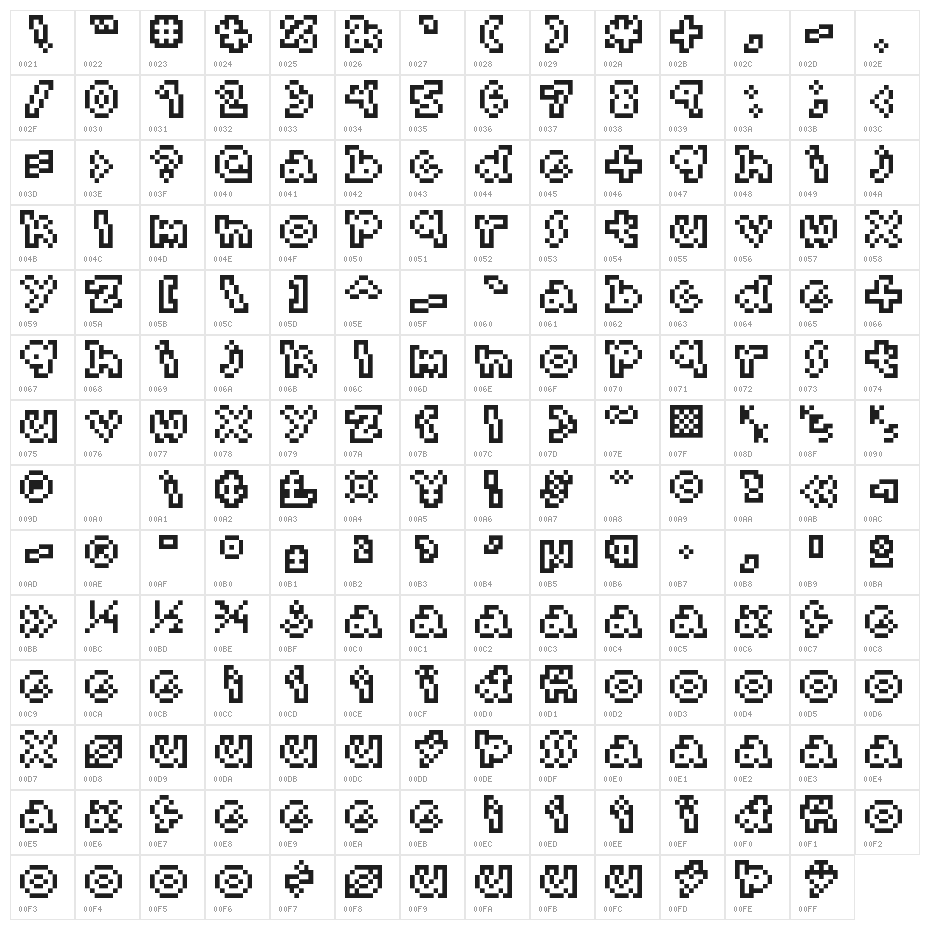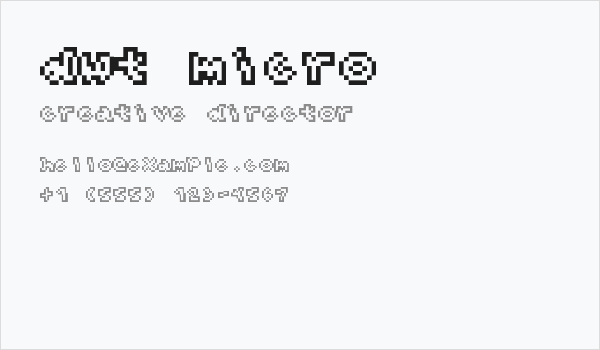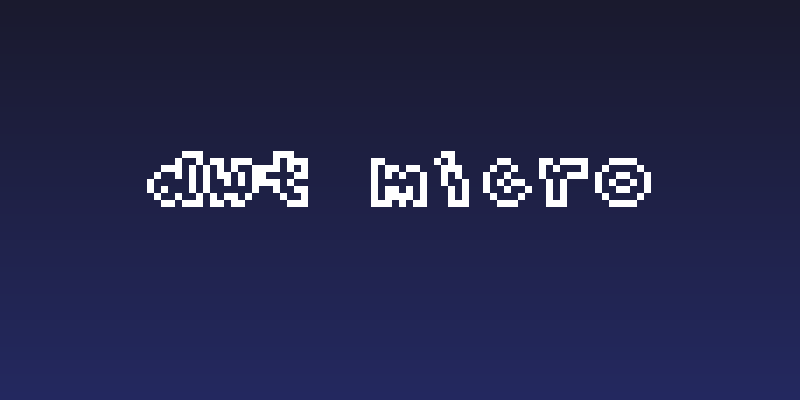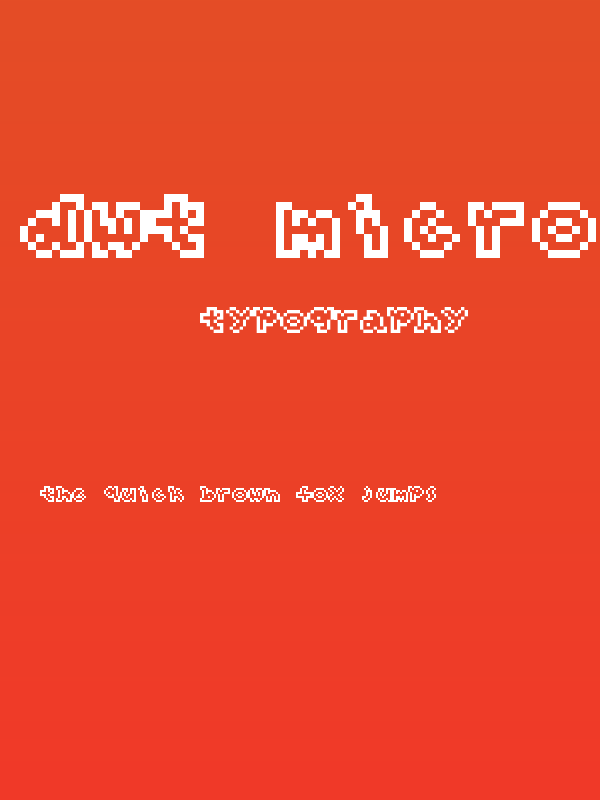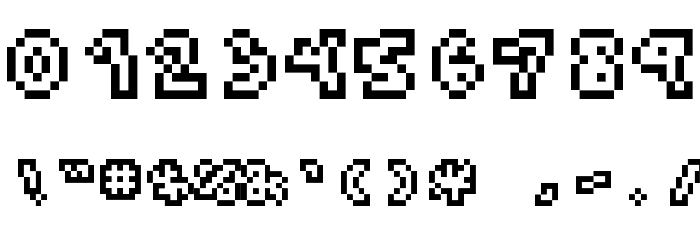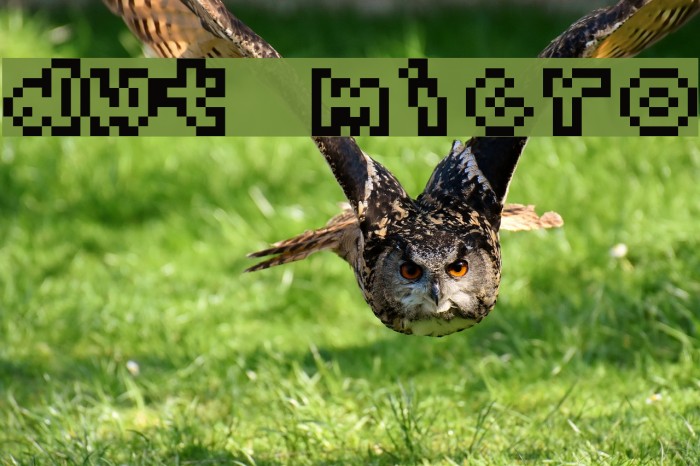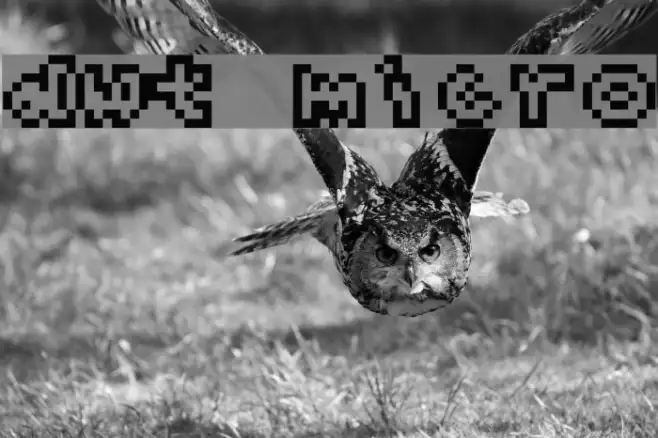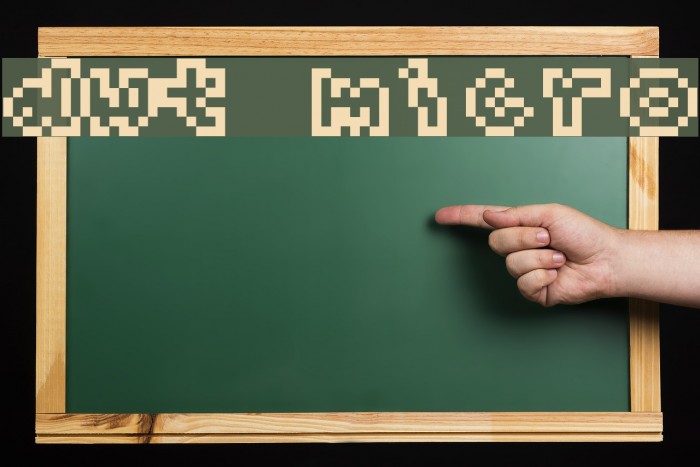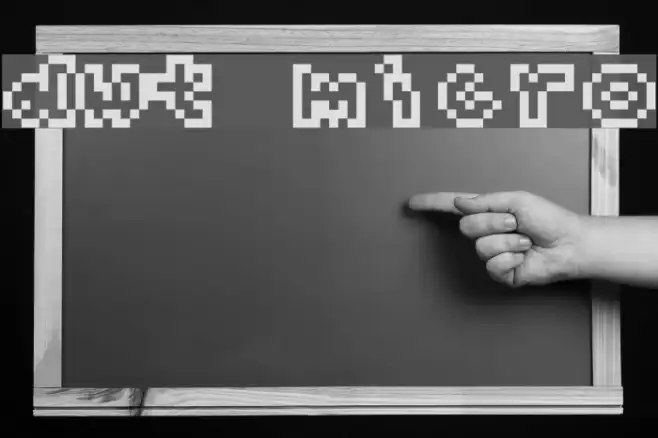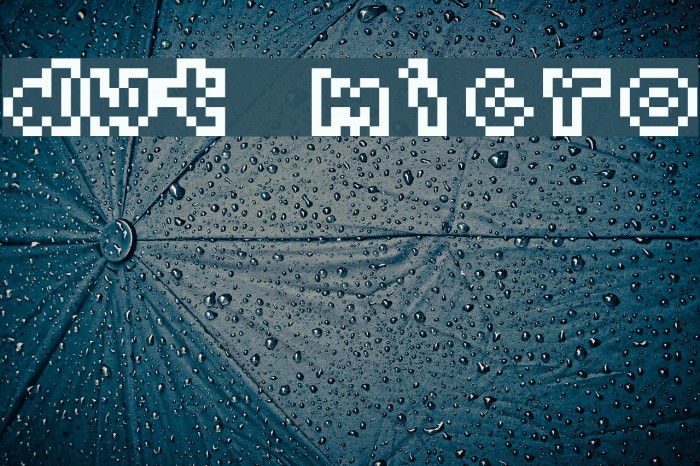
dwt Micro Font
dwt Micro Description
This font features a pixelated, blocky design reminiscent of early digital or video game typography. Each character is constructed with a grid-like pattern, giving it a retro, 8-bit aesthetic. The uppercase and lowercase letters maintain a consistent height, contributing to a uniform appearance. The numbers and special characters follow the same pixelated style, ensuring cohesion across all glyphs. This font's distinct style is ideal for projects that aim to evoke nostalgia or a vintage digital theme. Its simplicity and clarity make it suitable for both display and decorative purposes.
| Use Case | Logos, Headlines, Digital Art |
| Proposed Projects | Ideal for retro video games, digital art projects, nostalgic branding, or any design requiring a vintage digital aesthetic. |